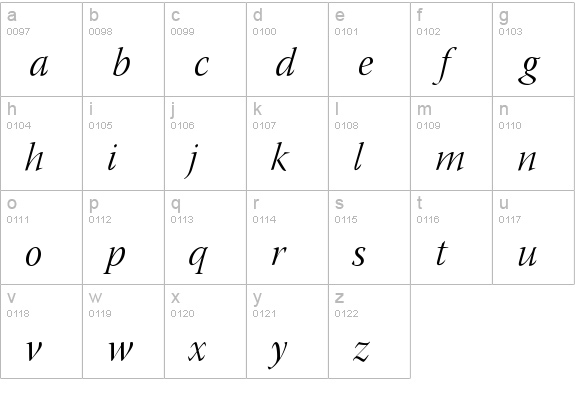
Warnock Pro Light Italic Display Font Details
Warnock Pro Light Italic Display is a refined, elegant, italic variant in the Warnock typeface family \xE2\x80\x94 well suited to elegant body text, refined sub-headings, and luxury branding.
Warnock Pro Light Italic Display font is a stunning typeface that exudes elegance and sophistication. It is the perfect choice for adding a touch of class to any design project. With its delicate and graceful curves, this font captures attention effortlessly. Designed with utmost precision, Warnock Pro Light Italic Display font strikes the perfect balance between legibility and style. Its italicized form adds a subtle emphasis to the text, making it ideal for headings, subheadings, and other display purposes. This font is freely available to download at FontsMarket.com, a trusted source for high-quality fonts. It offers designers the opportunity to enhance their creative projects without any cost attached. Whether you are a professional designer or a hobbyist, this font is a valuable addition to your font library. The Warnock Pro Light Italic Display font is versatile and adaptable, making it suitable for a wide range of applications. From elegant invitations to sophisticated branding materials, this font will elevate the visual appeal of any design. Its clean lines and classic aesthetic make it timeless, ensuring that it will remain relevant for years to come. With its clear and crisp letterforms, Warnock Pro Light Italic Display font ensures optimal legibility even at smaller sizes. This makes it an excellent choice for captions, labels, and any other text that requires a touch of refinement. In conclusion, Warnock Pro Light Italic Display font is a must-have for anyone looking to add a touch of sophistication to their designs. Its availability as a free download at FontsMarket.com makes it accessible to all, allowing designers to create stunning visuals without breaking the bank. So why wait? Download this font today and let your creativity soar.